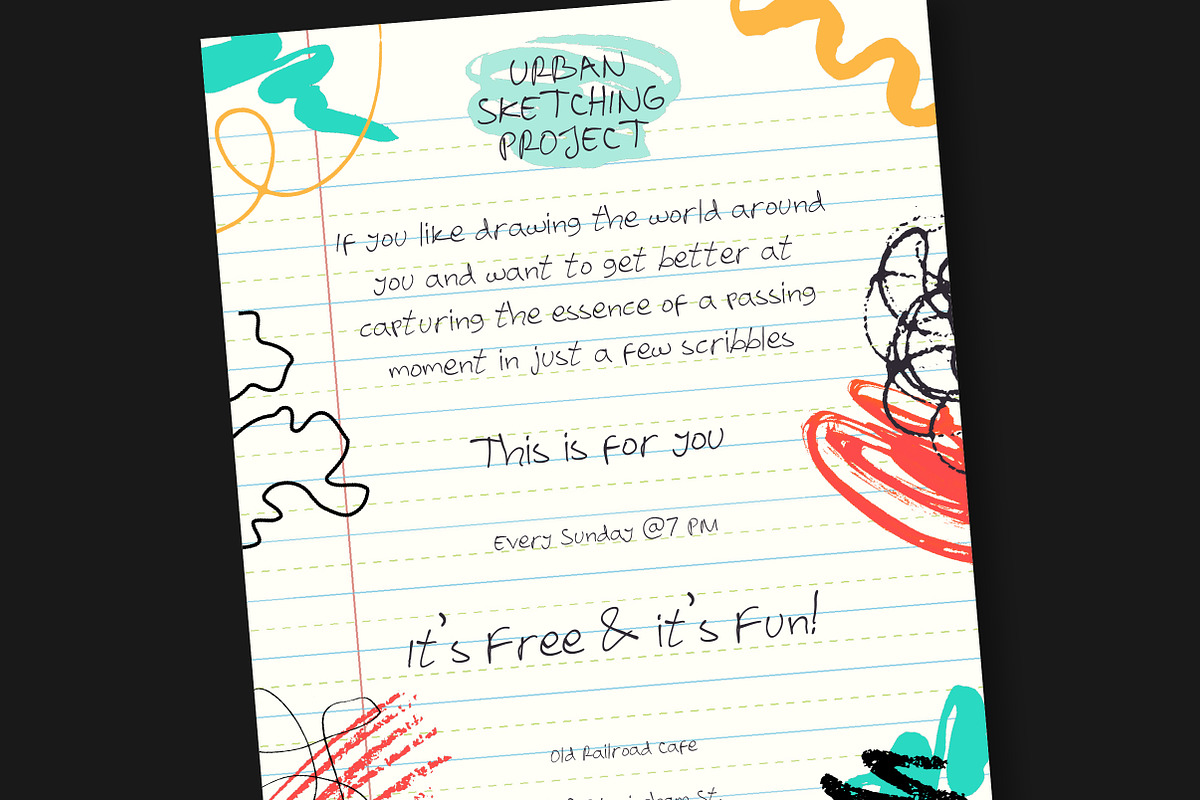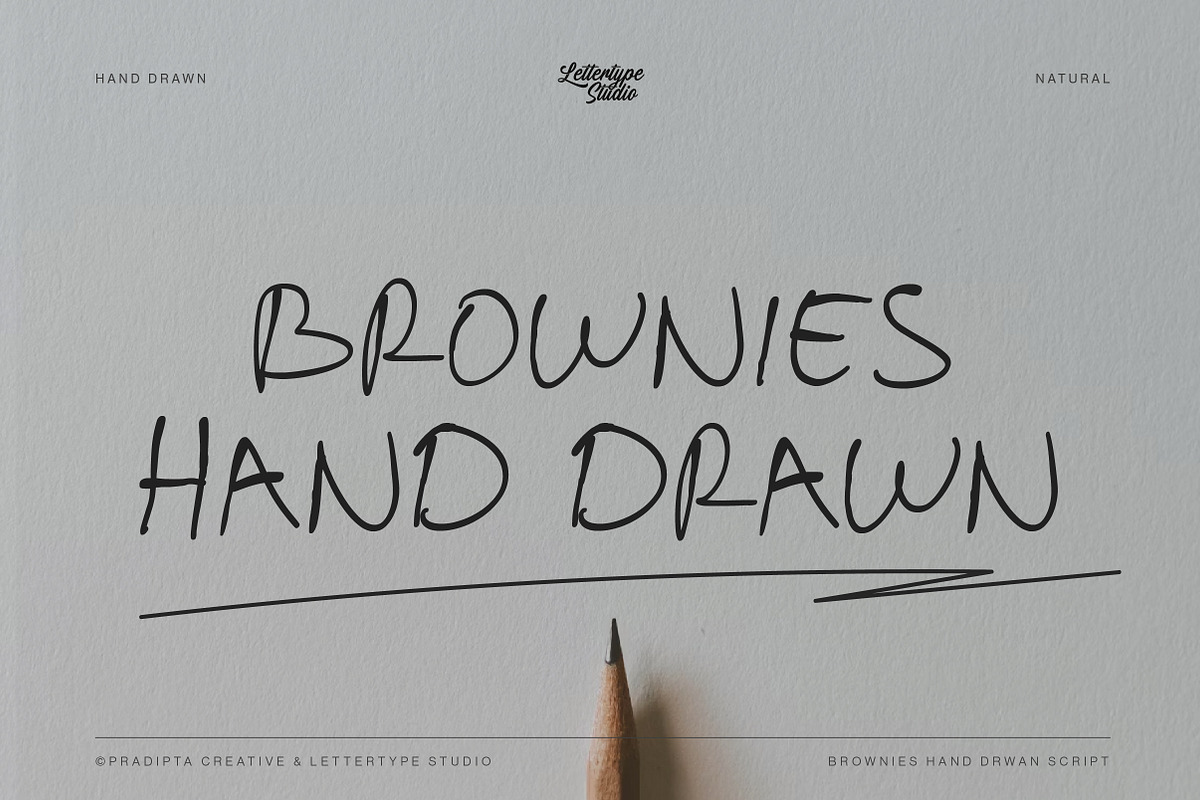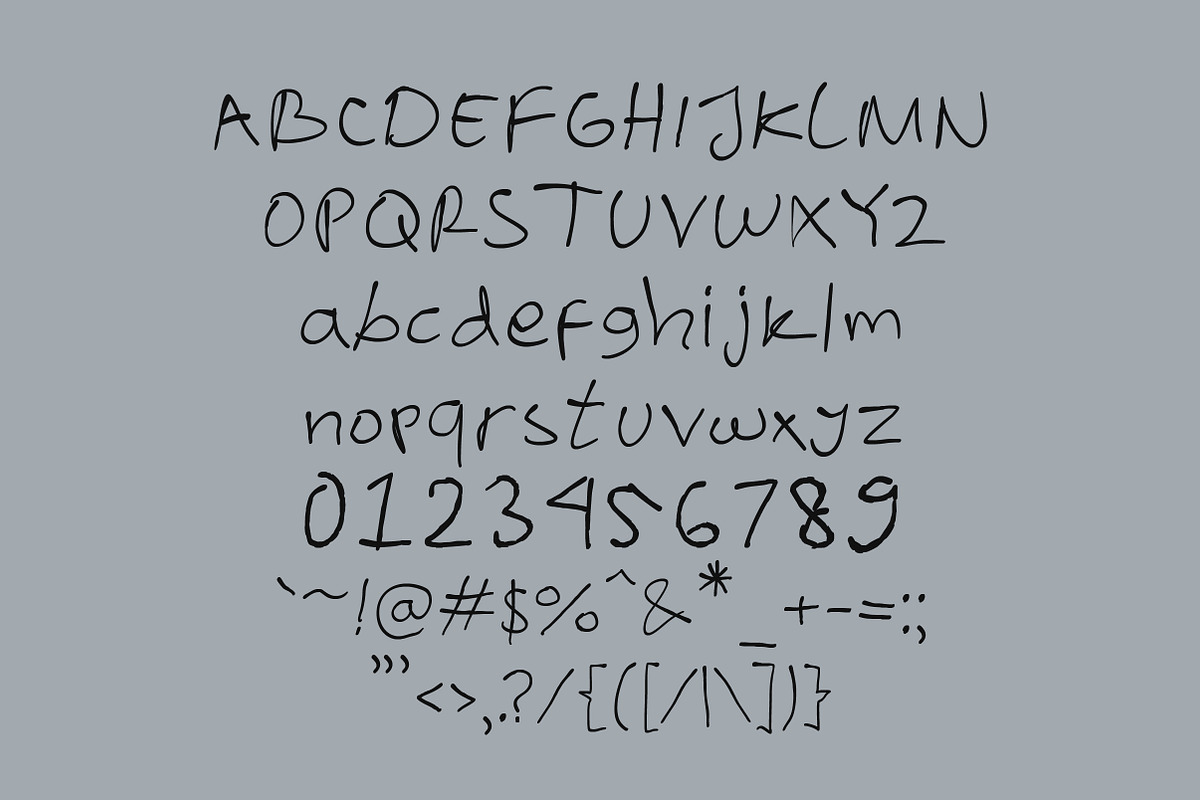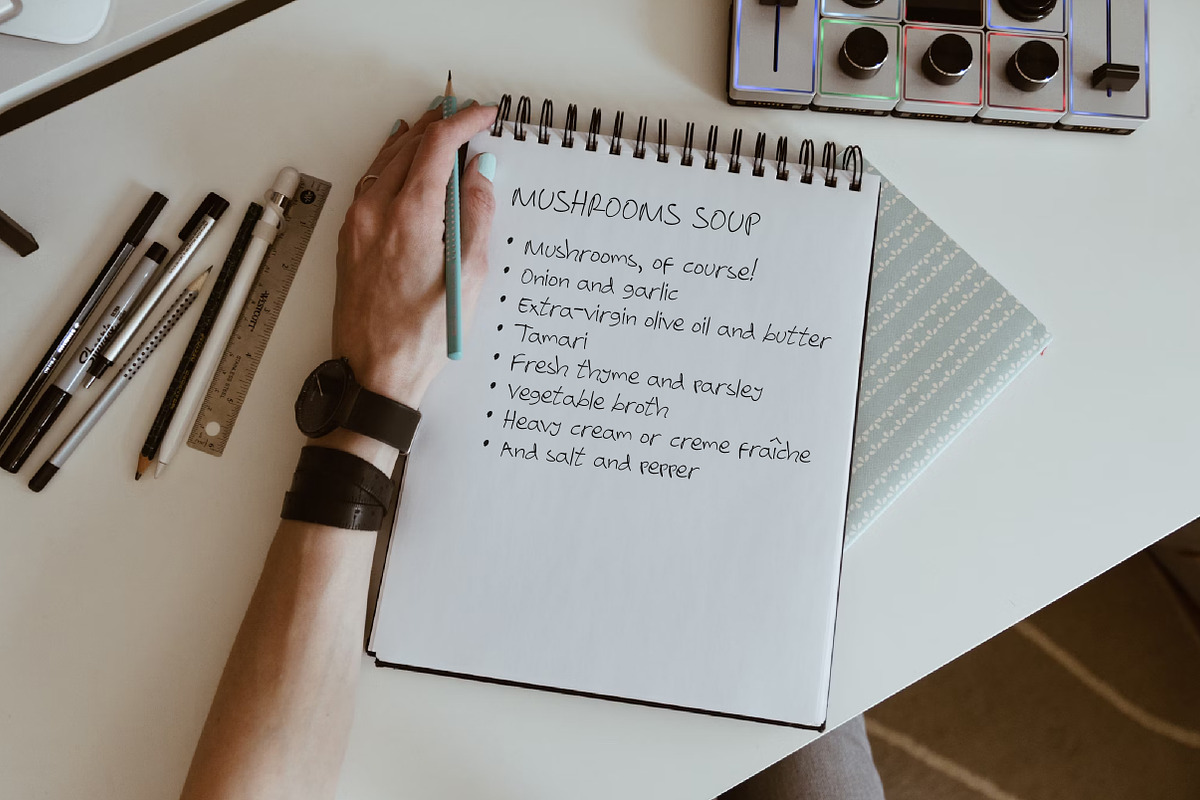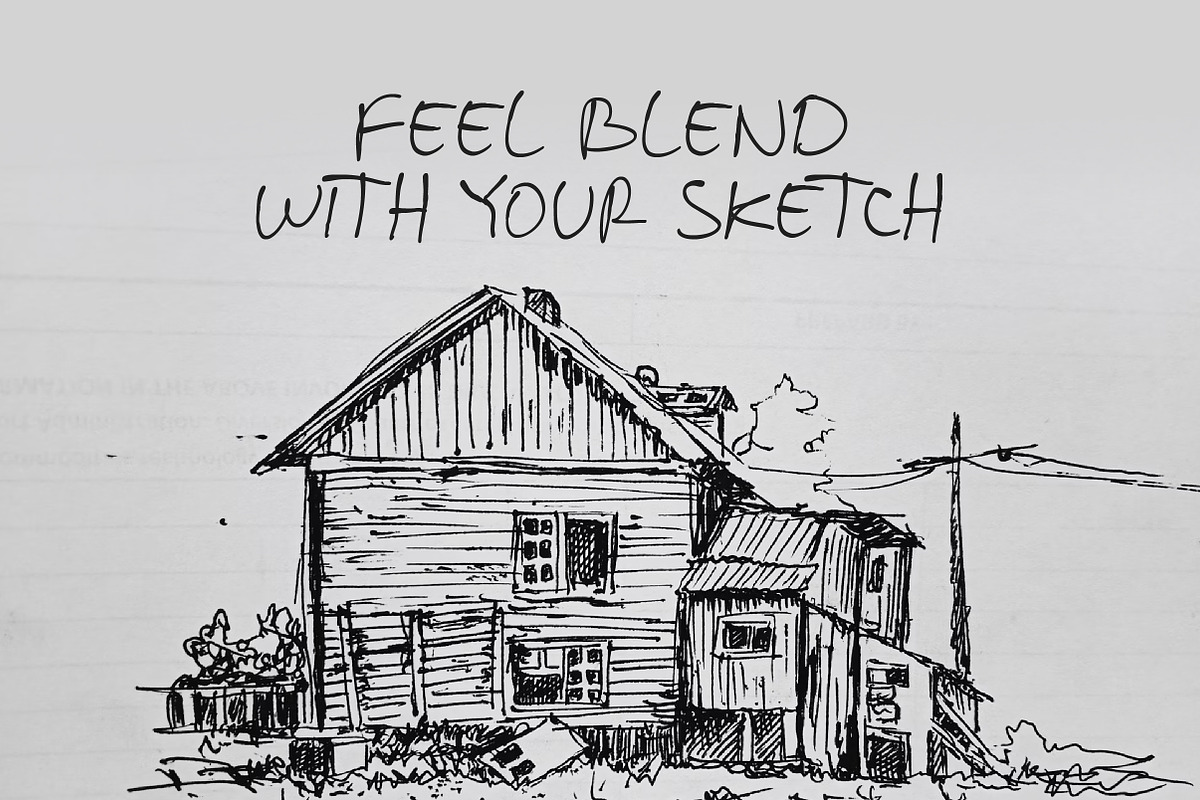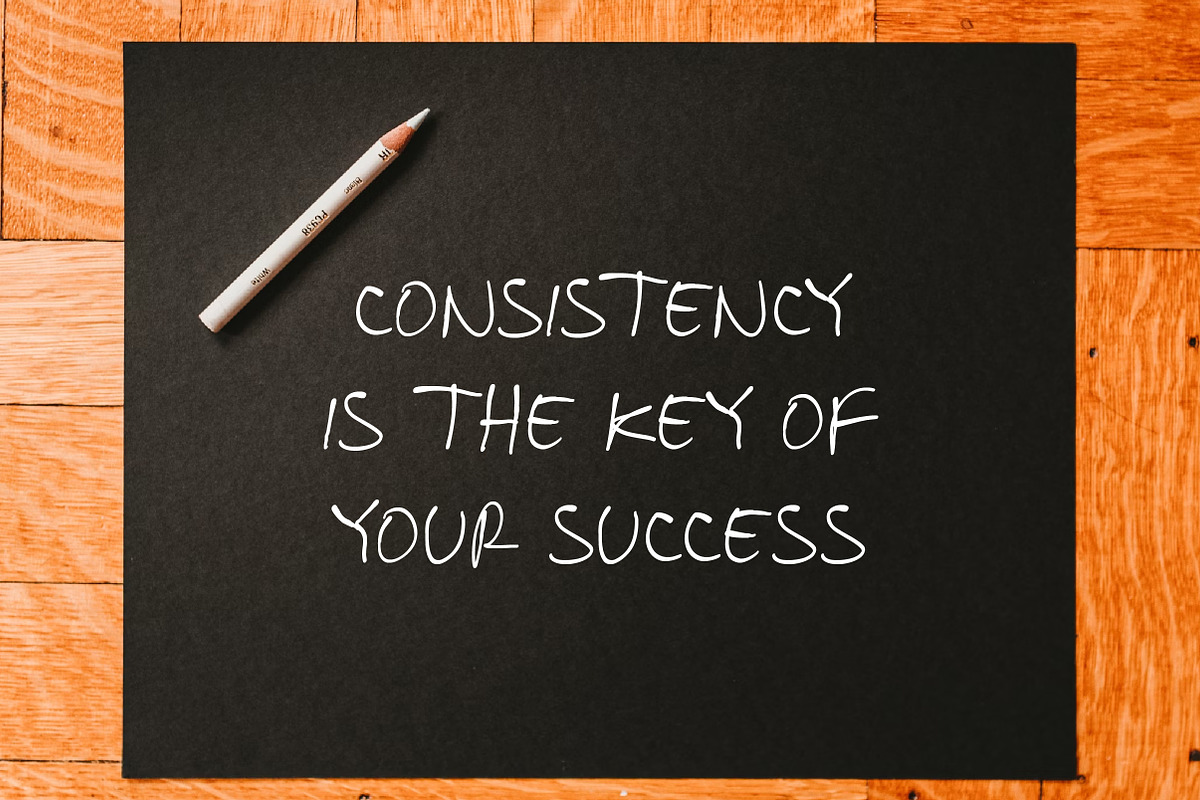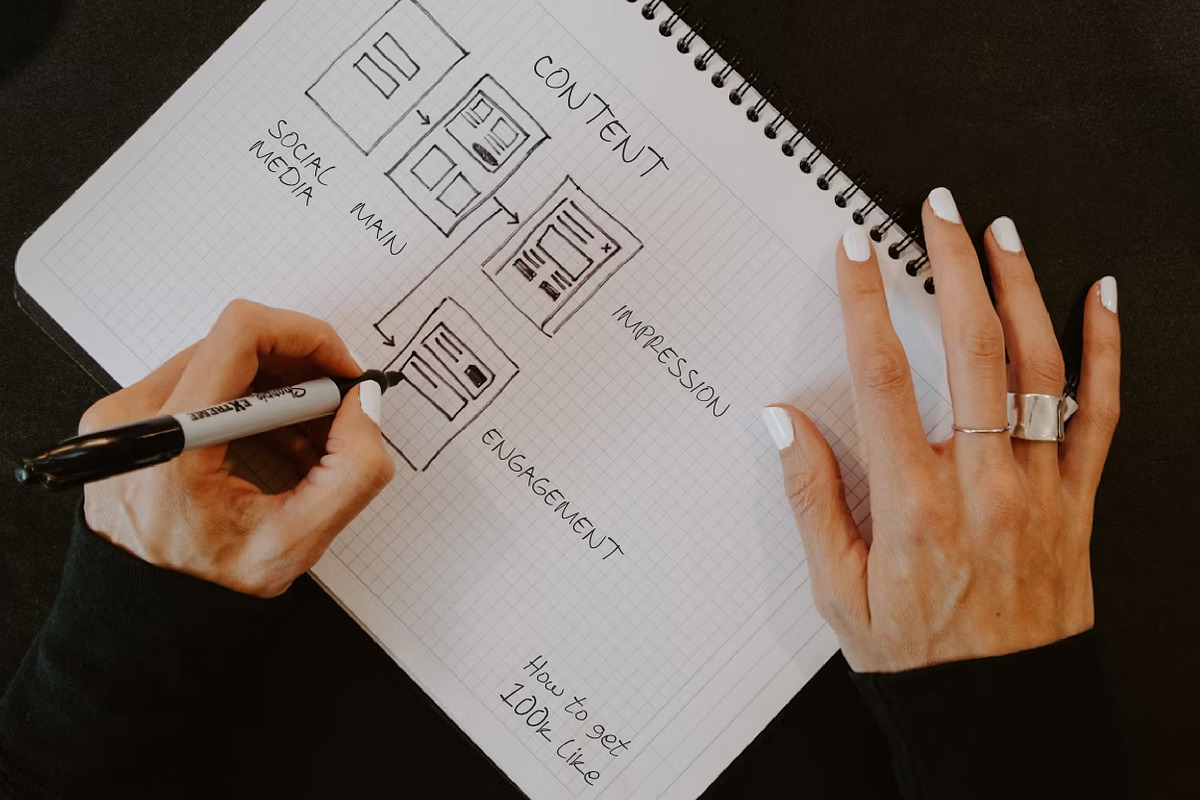
Brownies Hand Drawn Organic Script
Brownies Handdrawn is a script handwriting fonts that seamlessly blend natural, bold, and quote-worthy styles, perfect for adding a personal touch to your designs. These typefaces emulate authentic handwriting, offering a spectrum from delicate swashes to robust strokes, ideal for branding, invitations, and expressive typography.
Brownies Handdrawn Features:
Handwritten logos, personal branding & quotes
Wedding invitations, greeting cards & stationery
Packaging, labels & handmade product design
Social media posts, lifestyle graphics & lettering art
Posters, journals & creative note-style projects